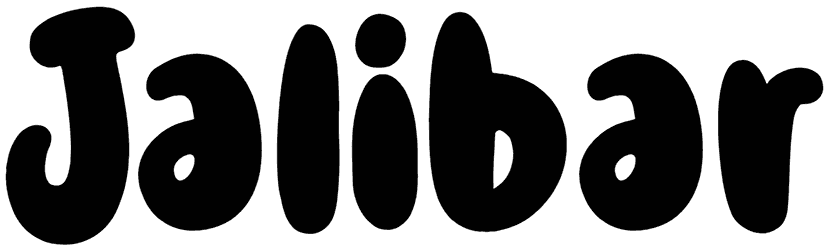
Jalibar Font
Create a sweet and soft style for a happy-themed design and make it more interesting. This balloon font, with its bulky hand-drawn form, can be a nice showcase for your creative layouts. Jalibar is ideally suited for various creative designs such as posters, postcards, t-shirts, mugs, or whatnot, and can give them a delightful vibe.